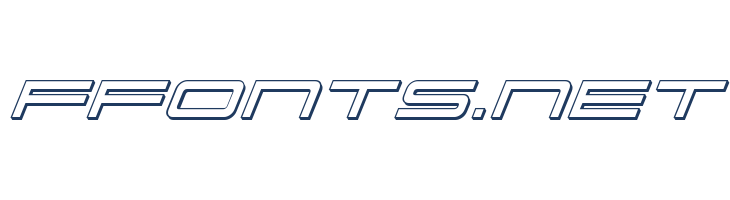
911 Porscha 3D Italic Font
This font features a sleek, modern design with a three-dimensional effect that gives it a futuristic appearance. The characters are outlined, creating a hollow look that adds depth and interest. The italicized style adds a sense of motion and dynamism, making it suitable for projects that require a contemporary and energetic feel. The uppercase and lowercase letters maintain a consistent geometric structure, while the numerals and special characters complement the overall aesthetic. This font is ideal for use in automotive branding, technology-related projects, and any design that aims to convey speed and innovation.
A modern, 3D italic font with a sleek, outlined design.
- Proposed Projects: Ideal for automotive branding, tech-related designs, and futuristic themes.
- Use Case: Logos, Headlines